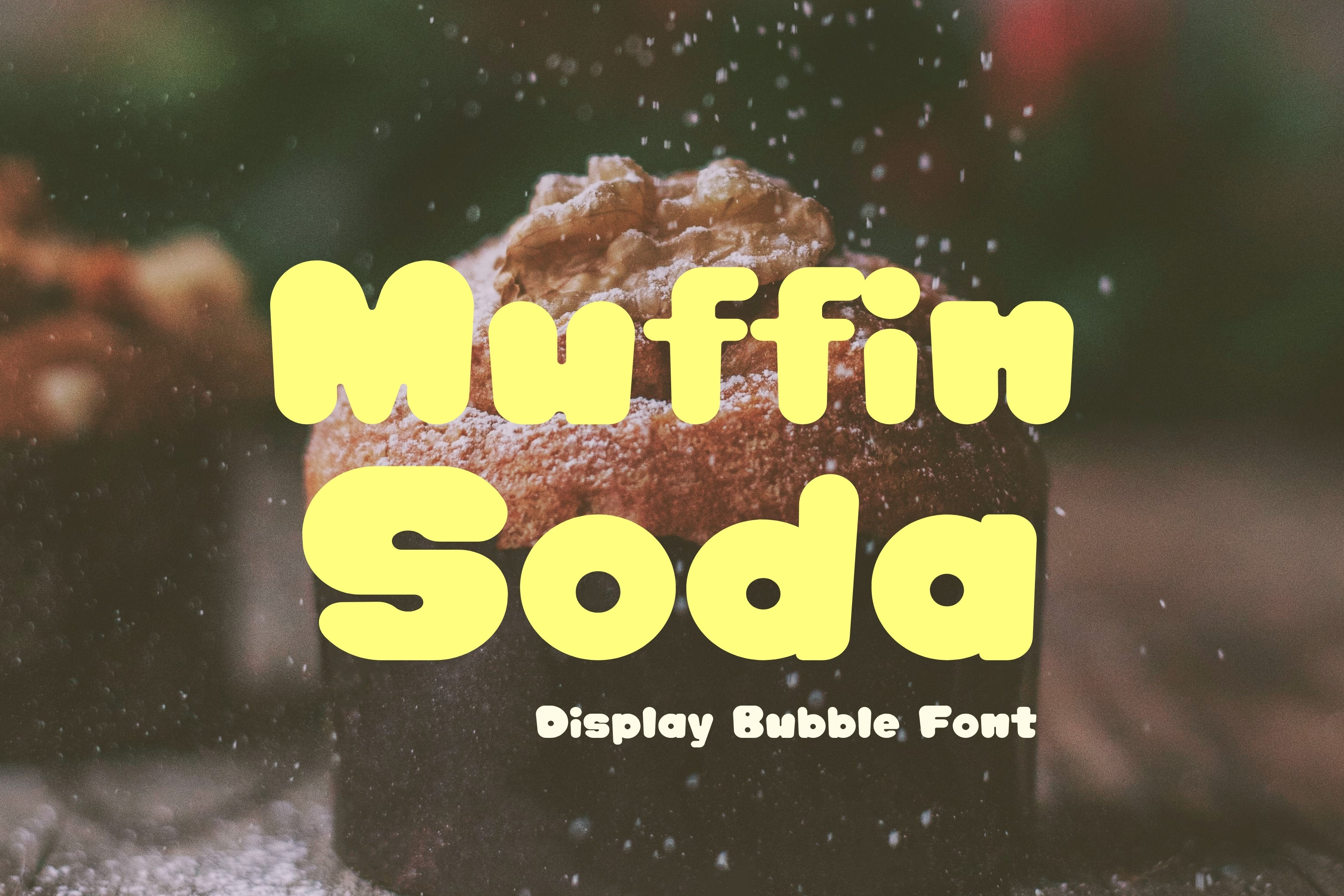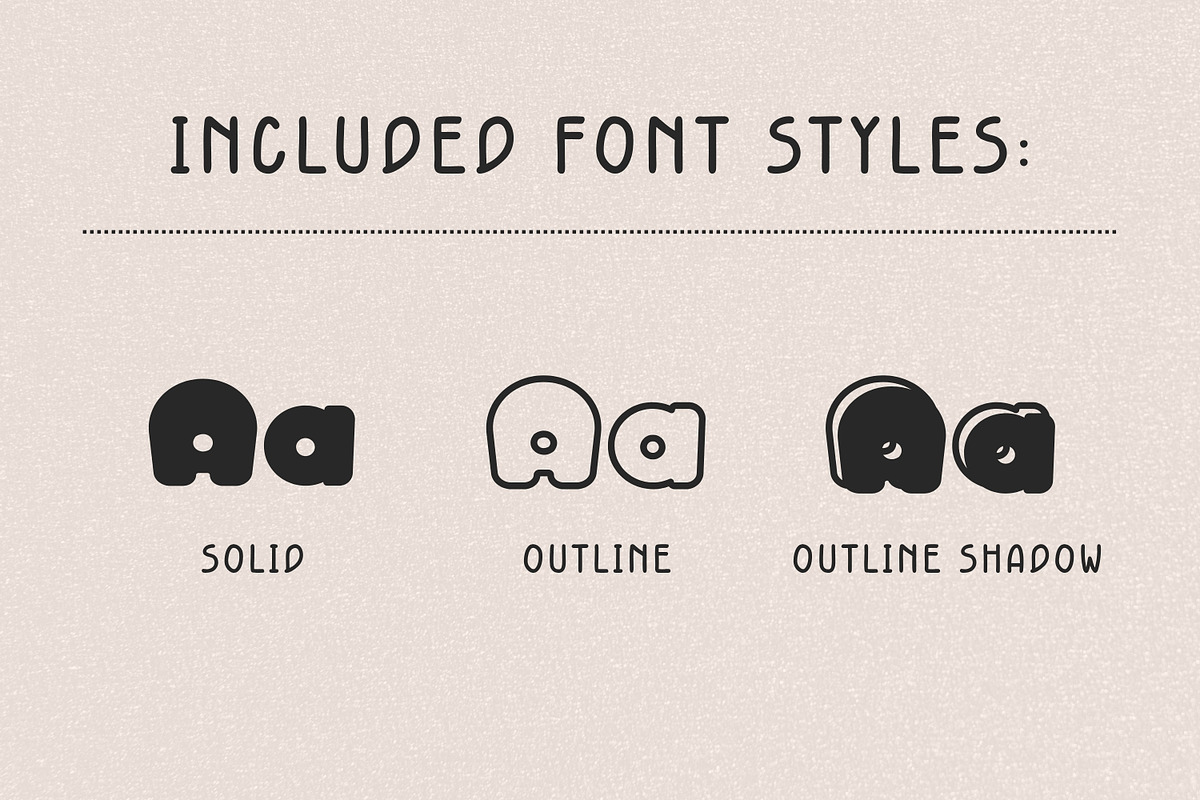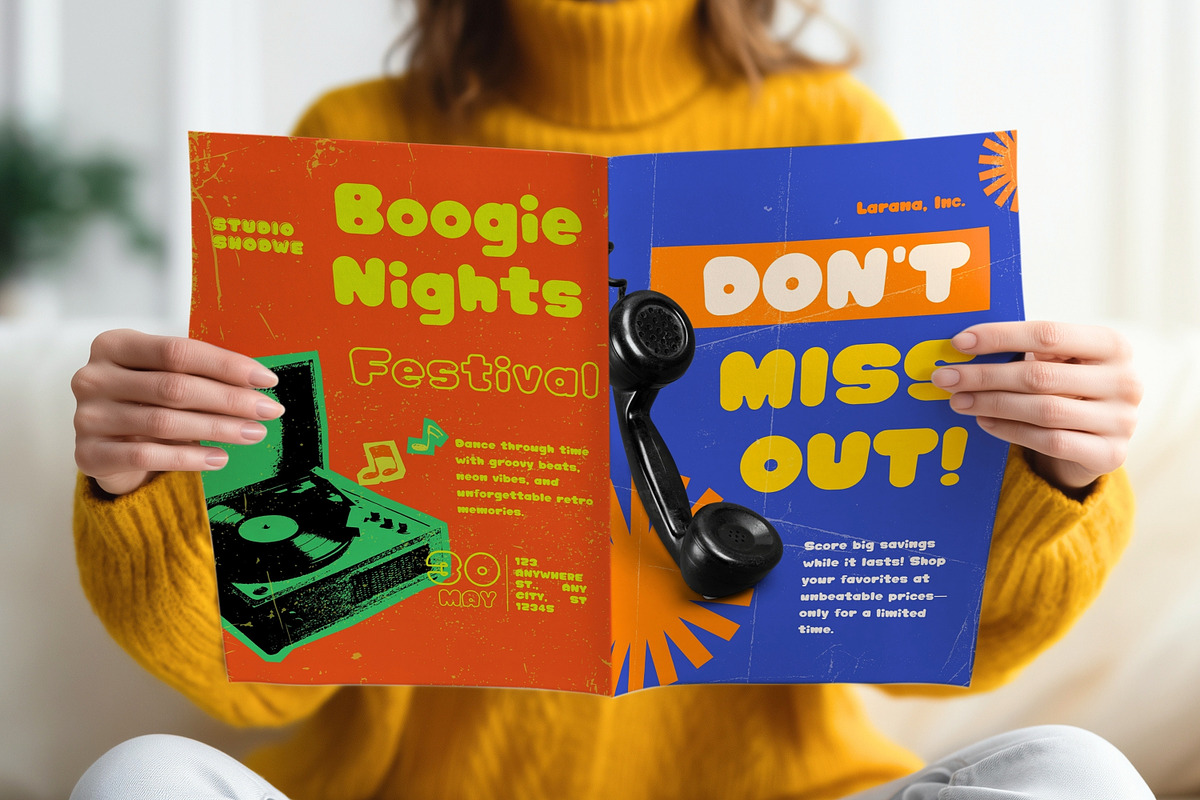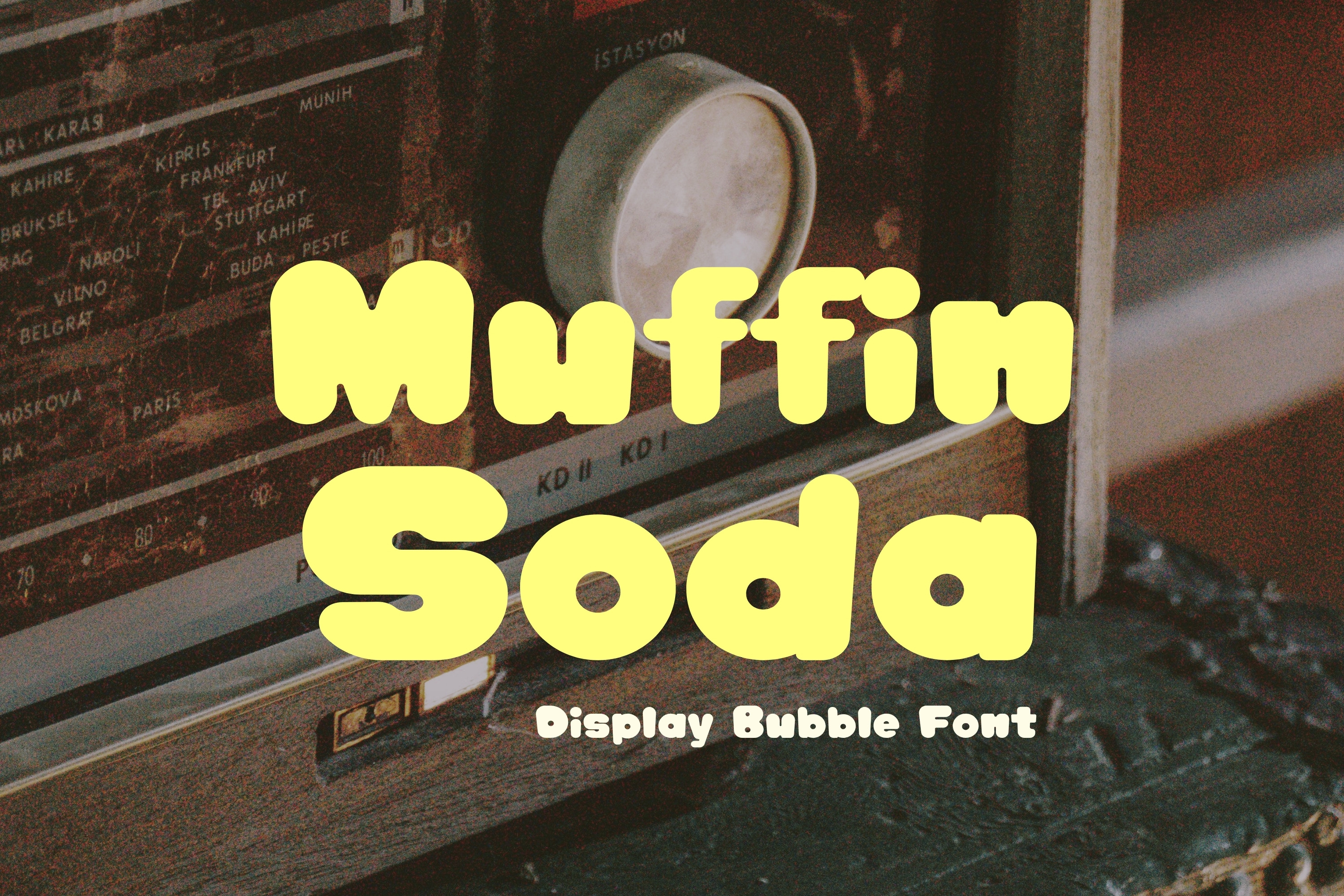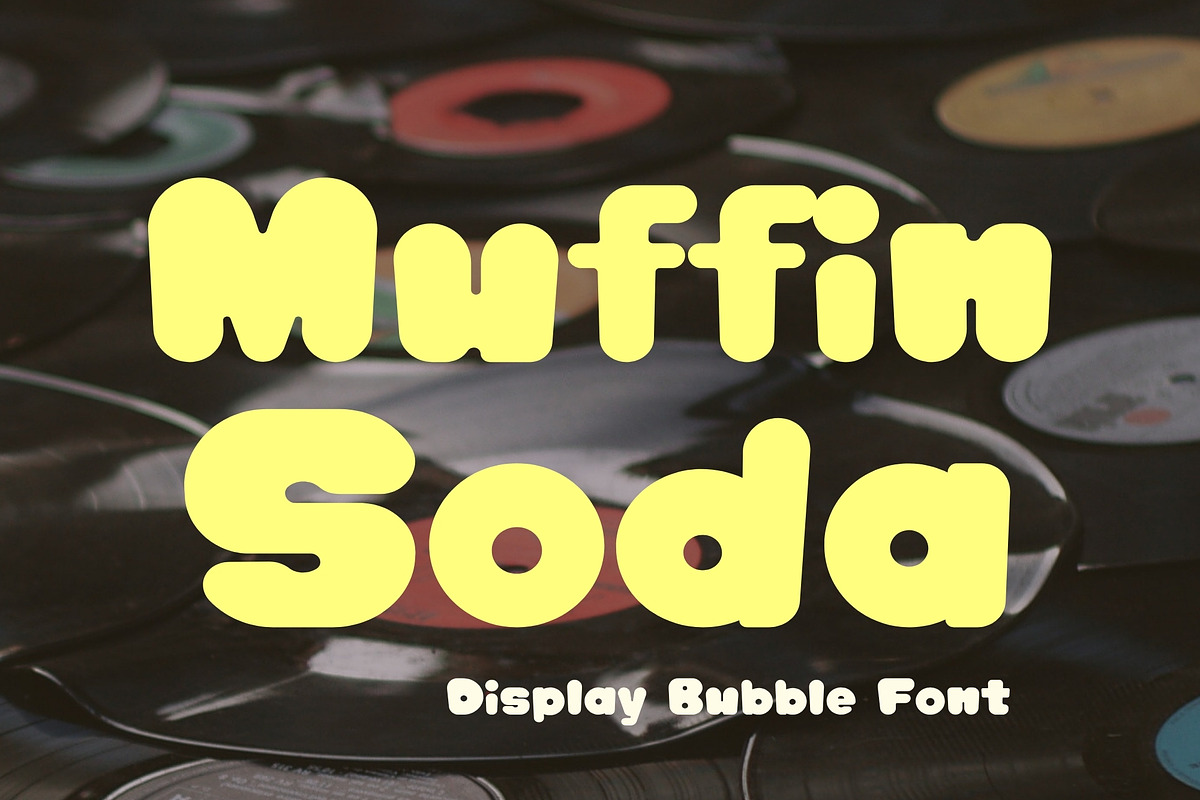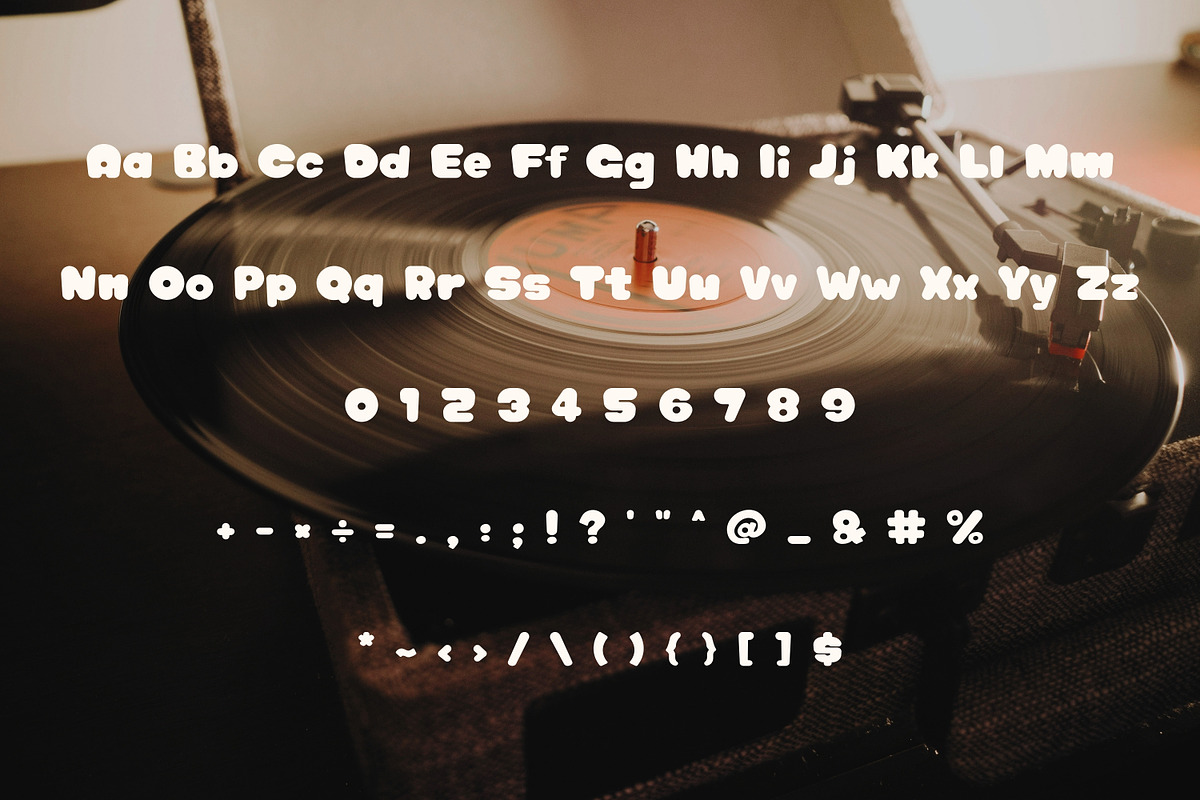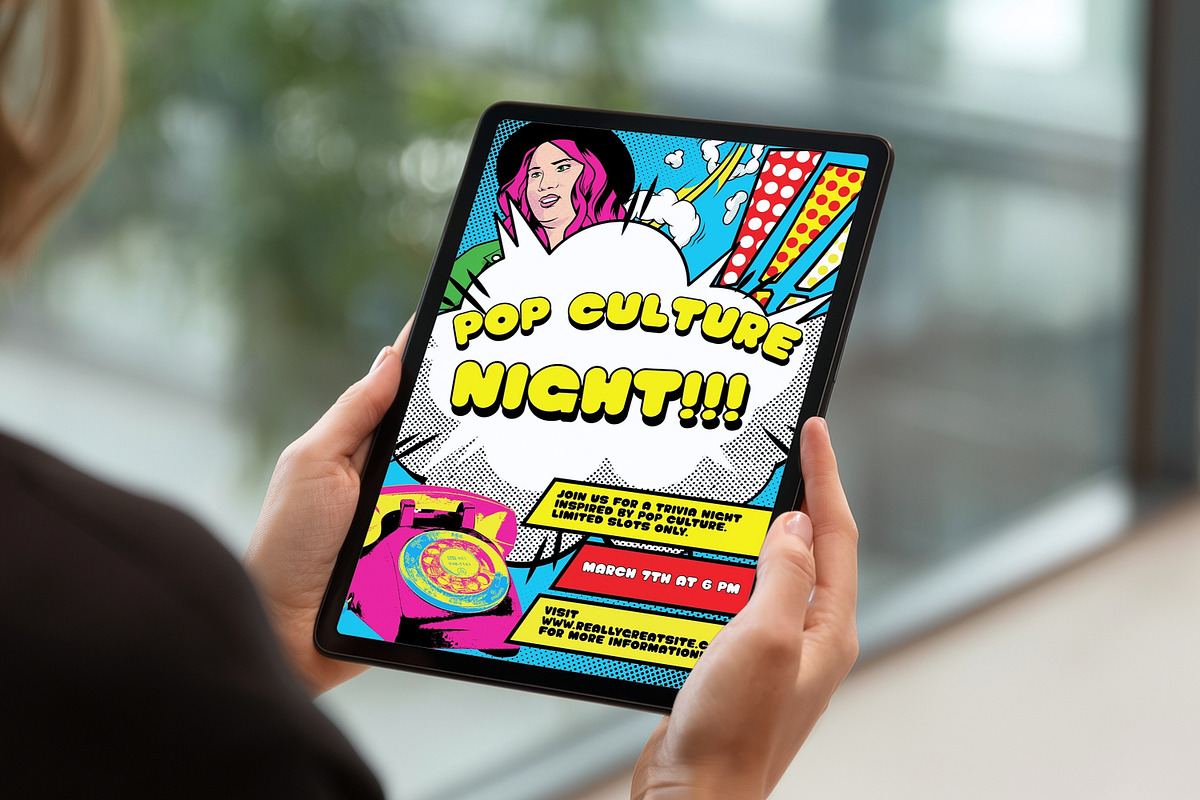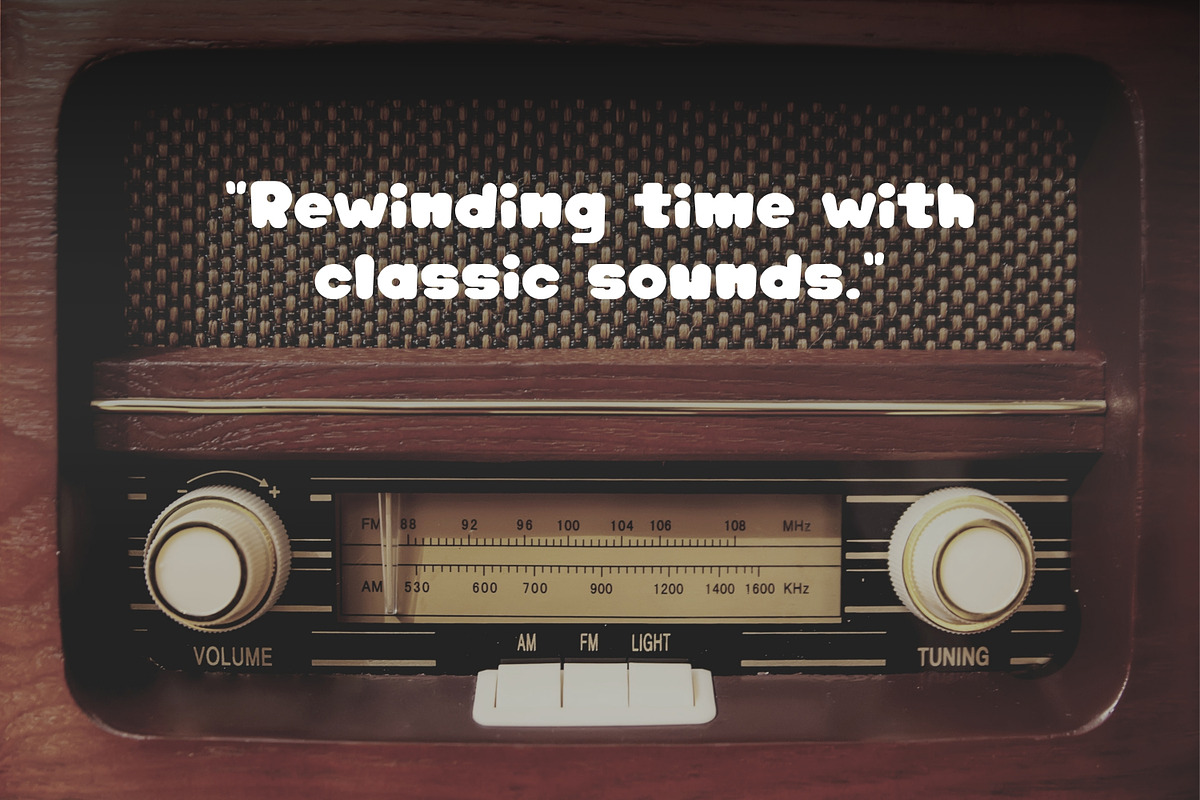
Bubble Display Font - Muffin Soda
✨ Make your designs extra cute with Muffin Soda Font – a soft, bubbly, and playful typeface perfect for kawaii and kids-style projects